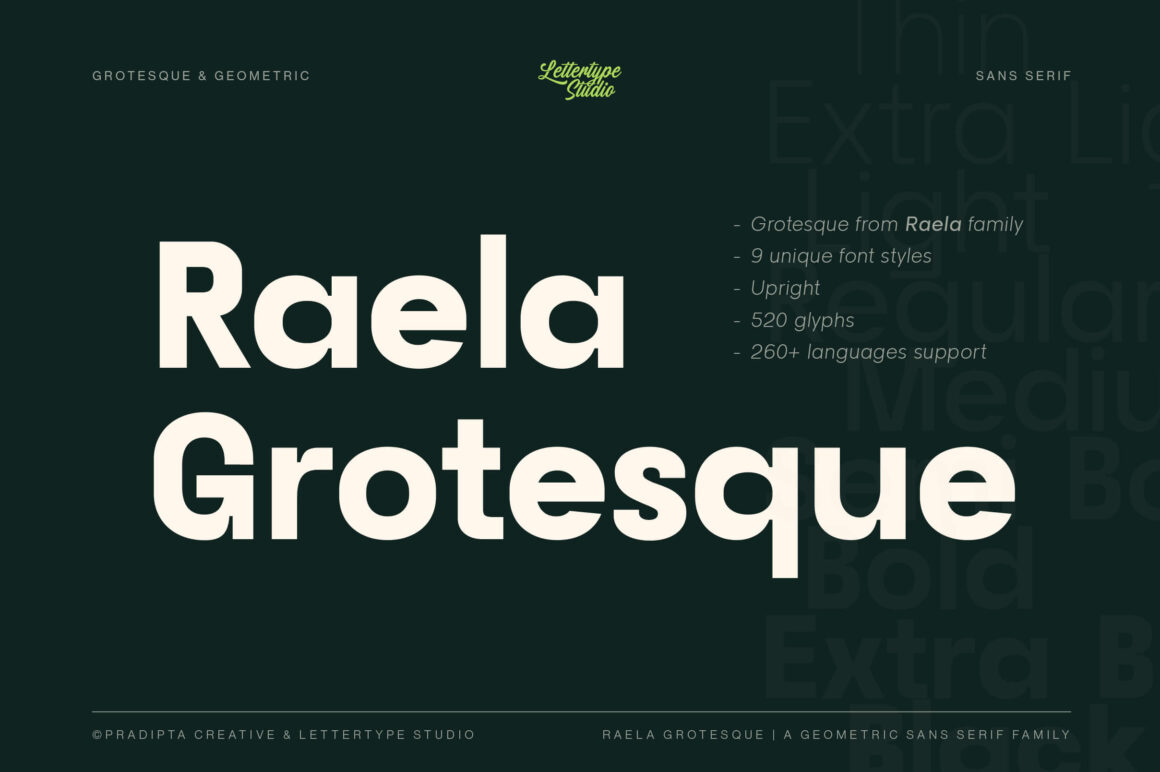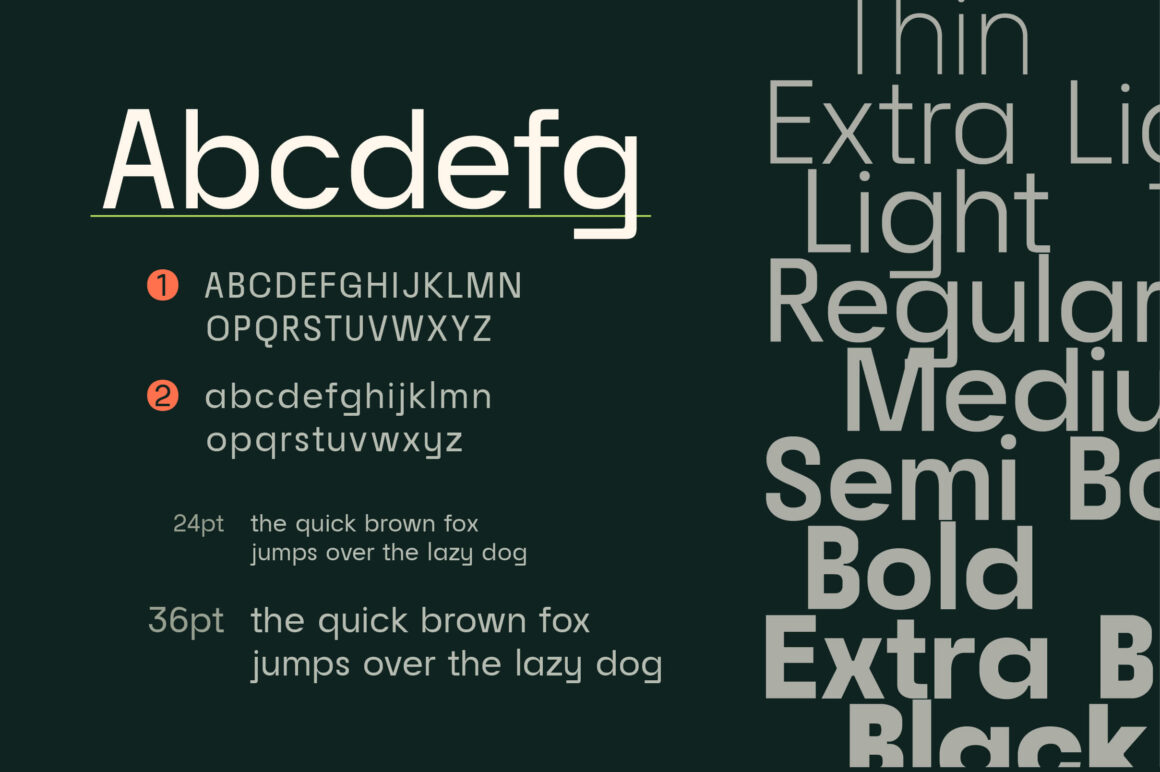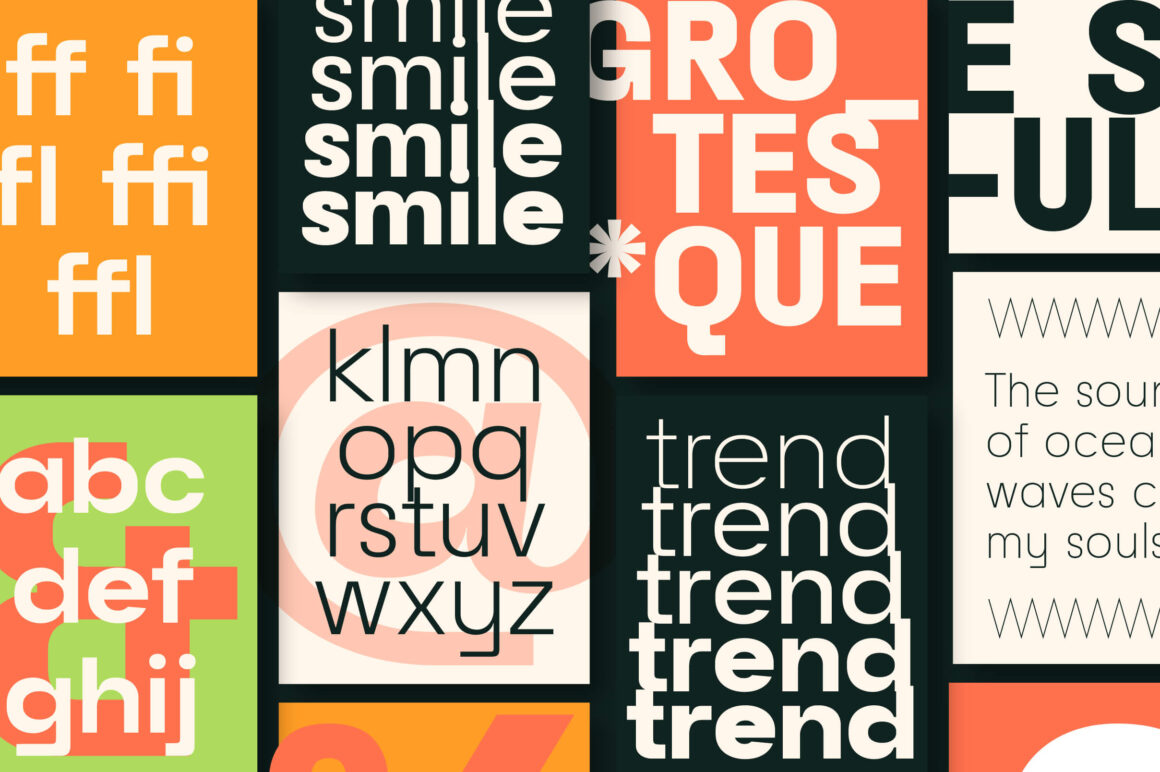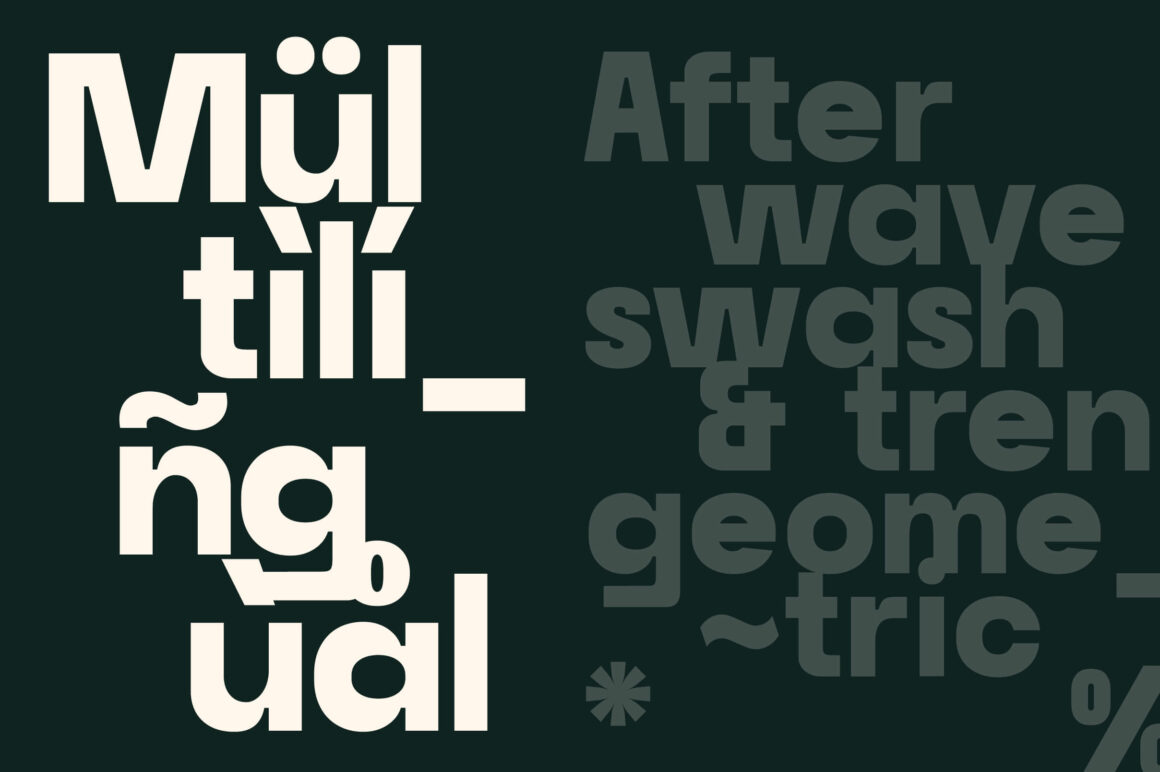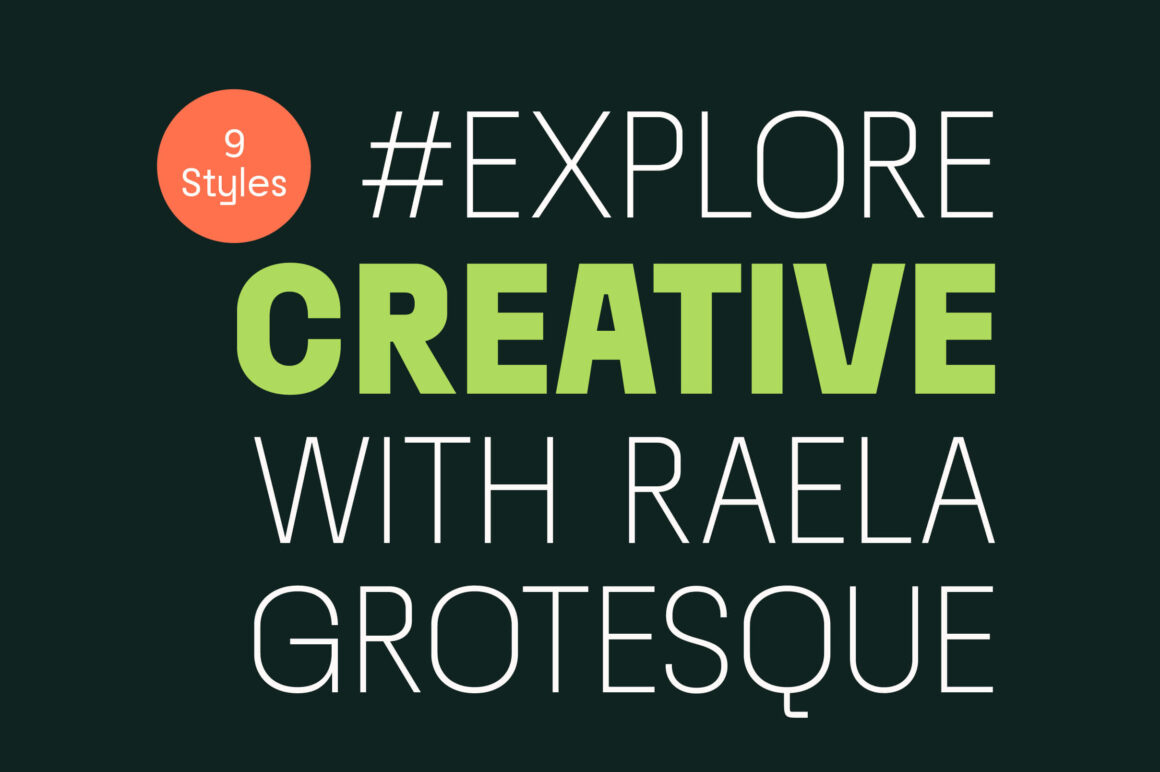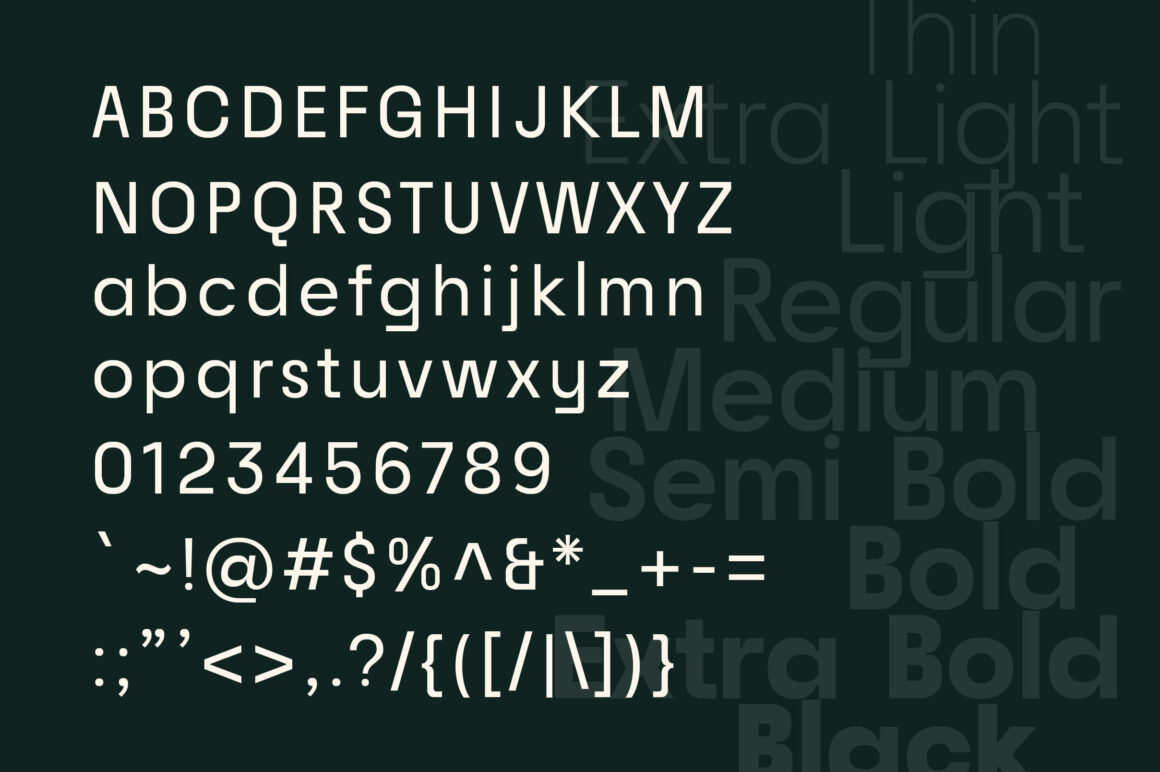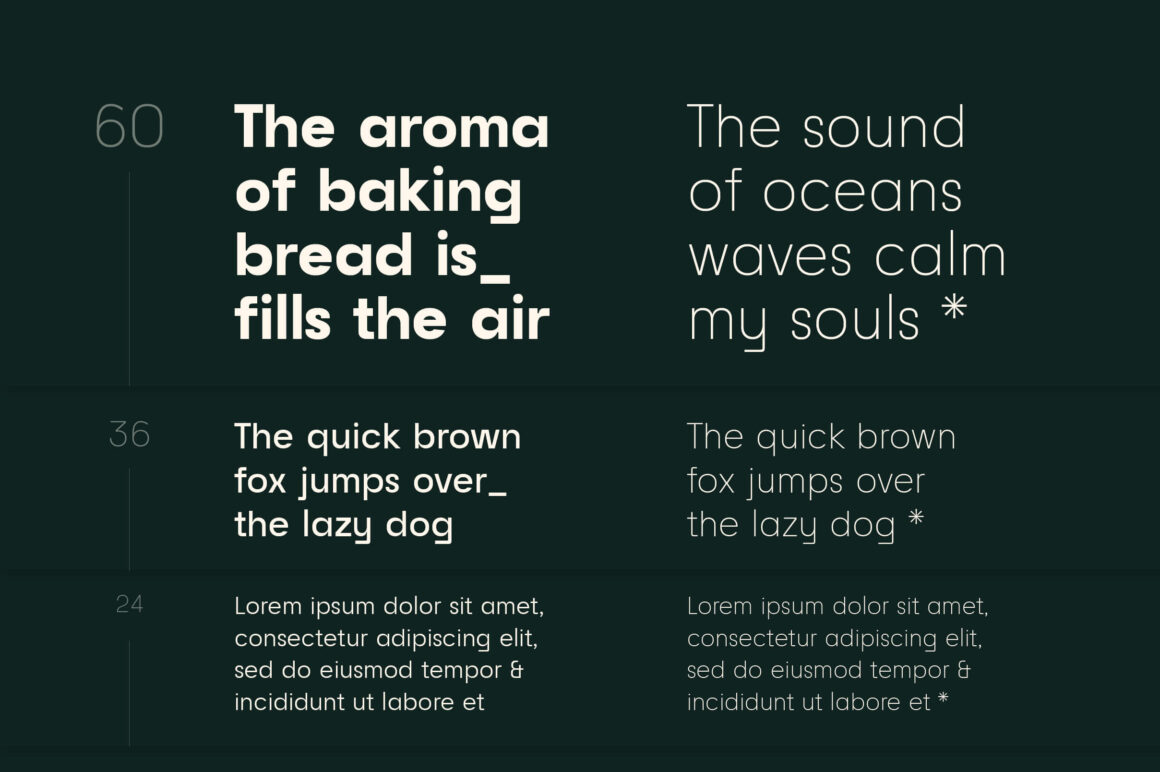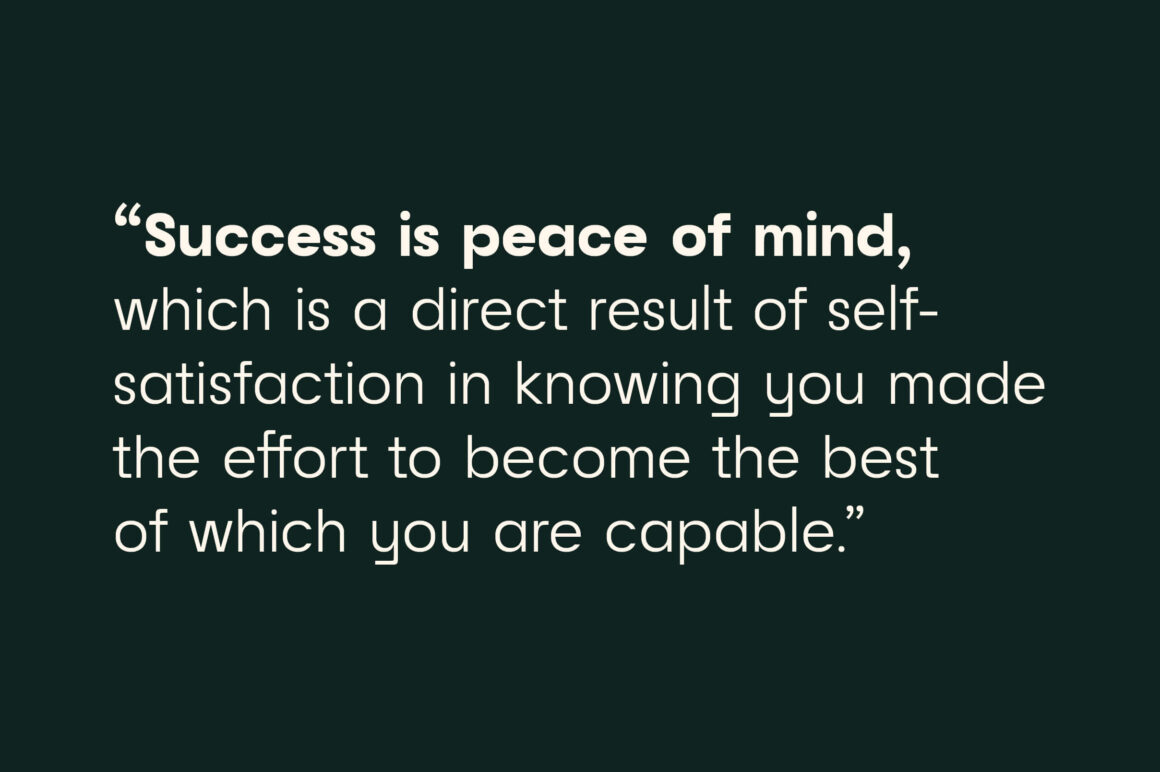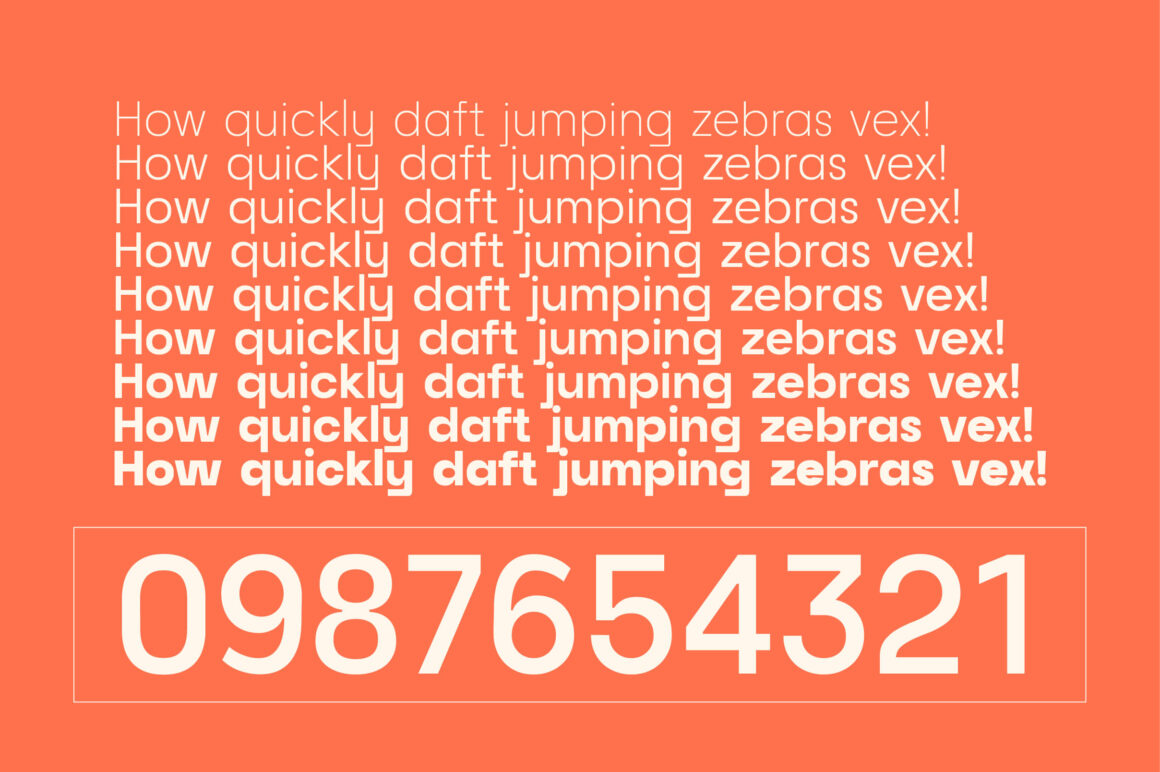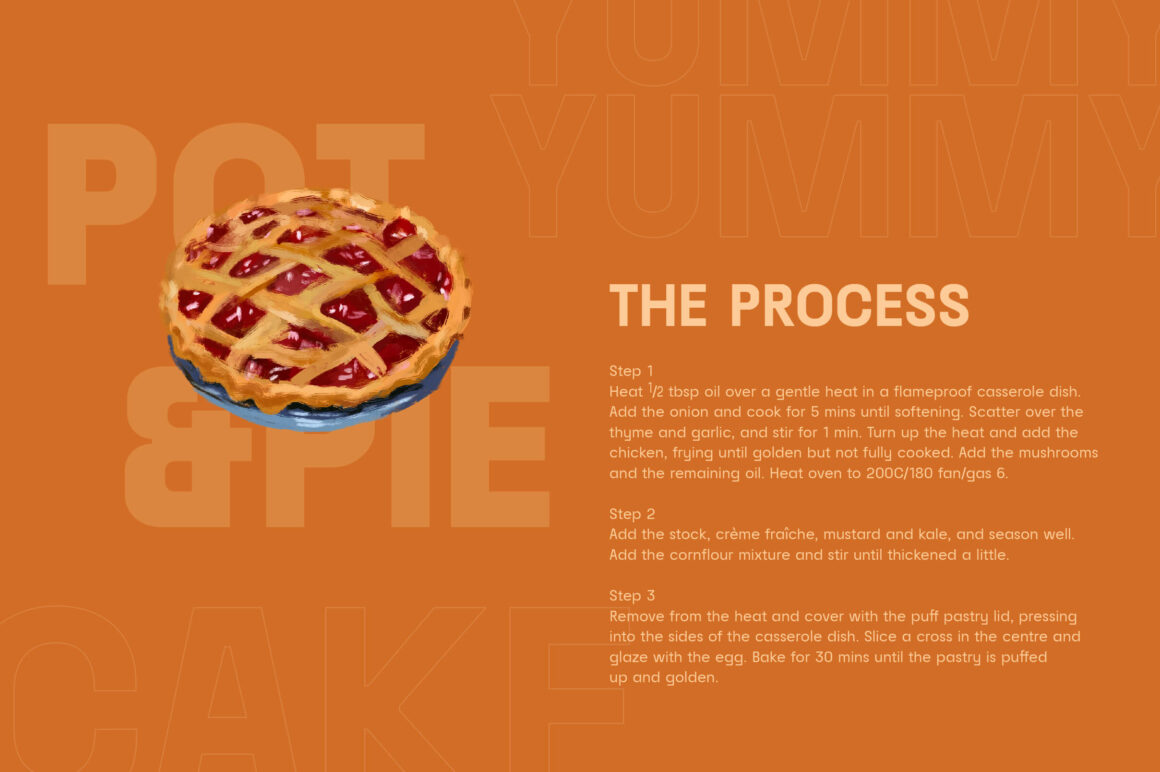
Raela Grotesque seamlessly blends geometric shapes’ clean, modern elegance with the timeless appeal of Grotesque design principles. Designed for readability and versatility, its proportional width, flat apex, closed aperture, and straight-cut stroke ends enhance its contemporary appeal with a bold and strong personality.
Raela Grotesk includes 9 weights, ranging from Thin to Heavy. OpenType features include Stylistic Alternates, figure variations (fractions, tabular lining, numerator, denominator), and broad Latin language support.
Raela Grotesque Features:
• 9 unique grotesque font styles
• Upright Styles
• 520+ glyphs
• 260+ languages support
• Multilingual Support